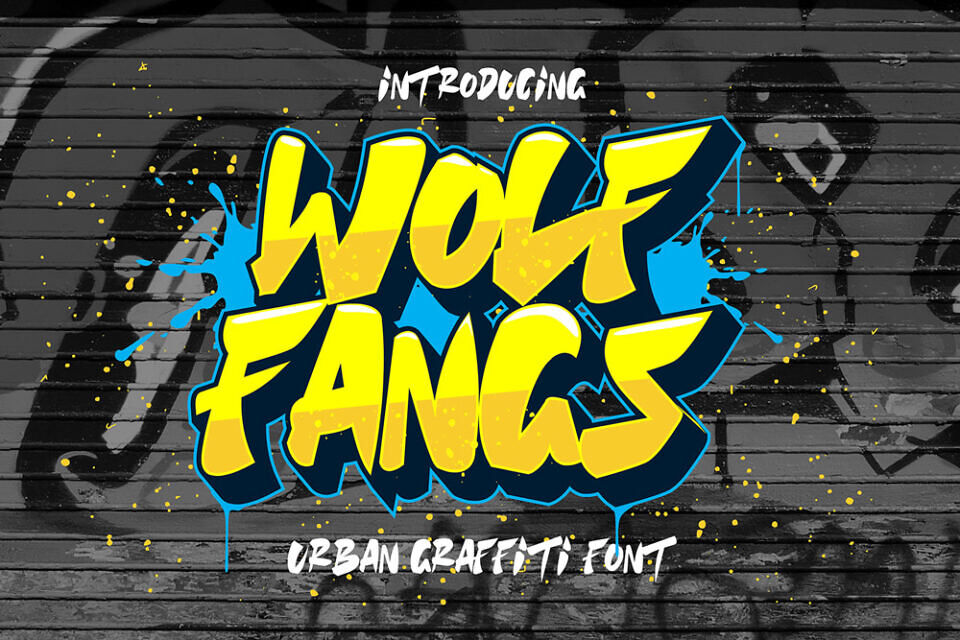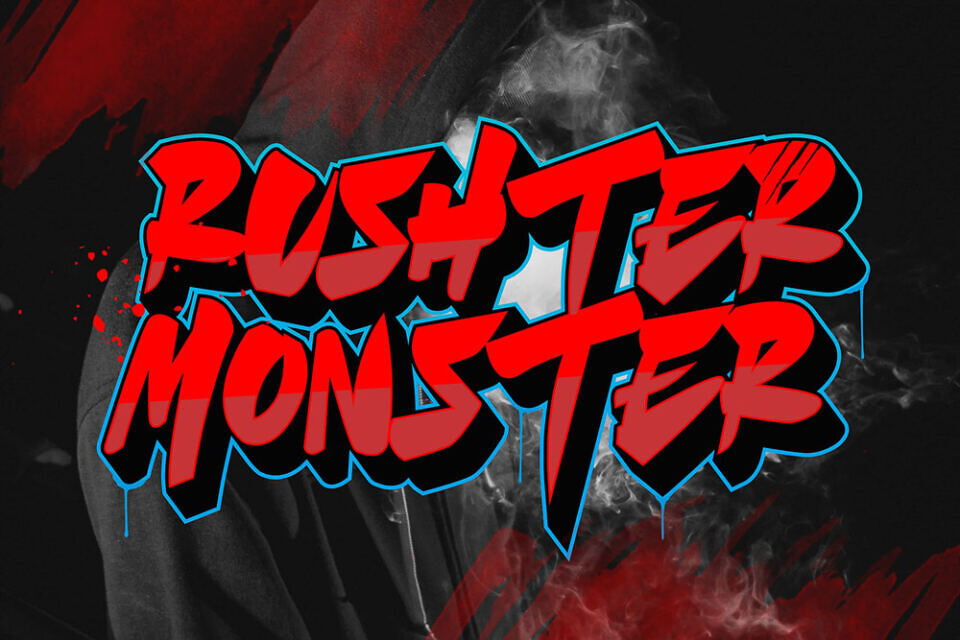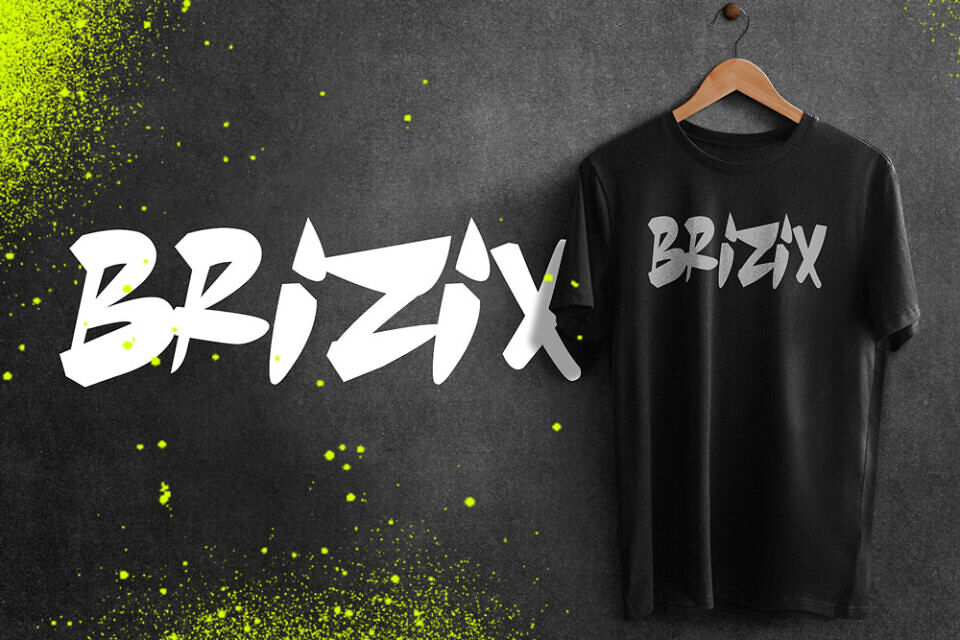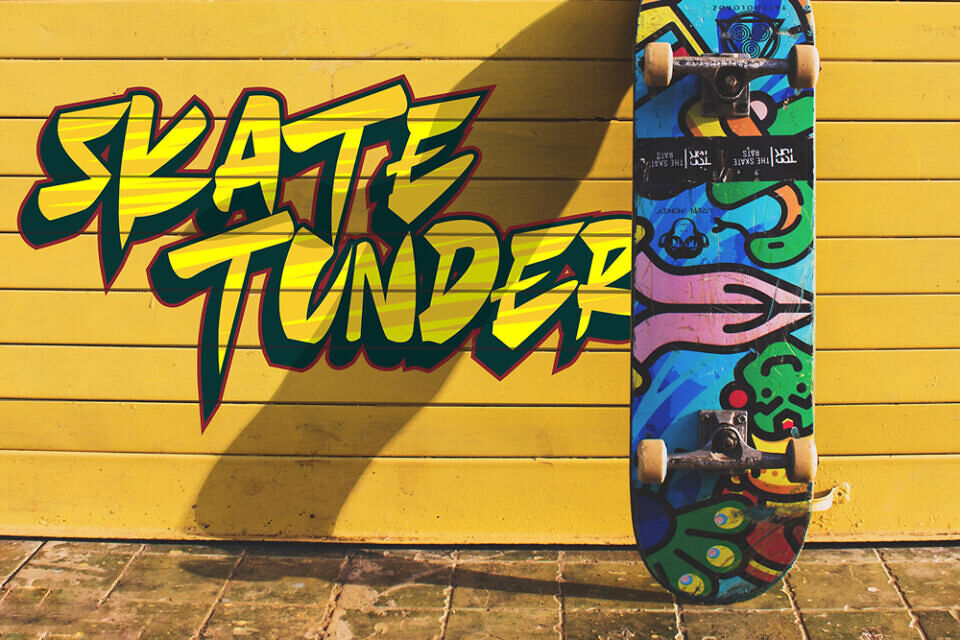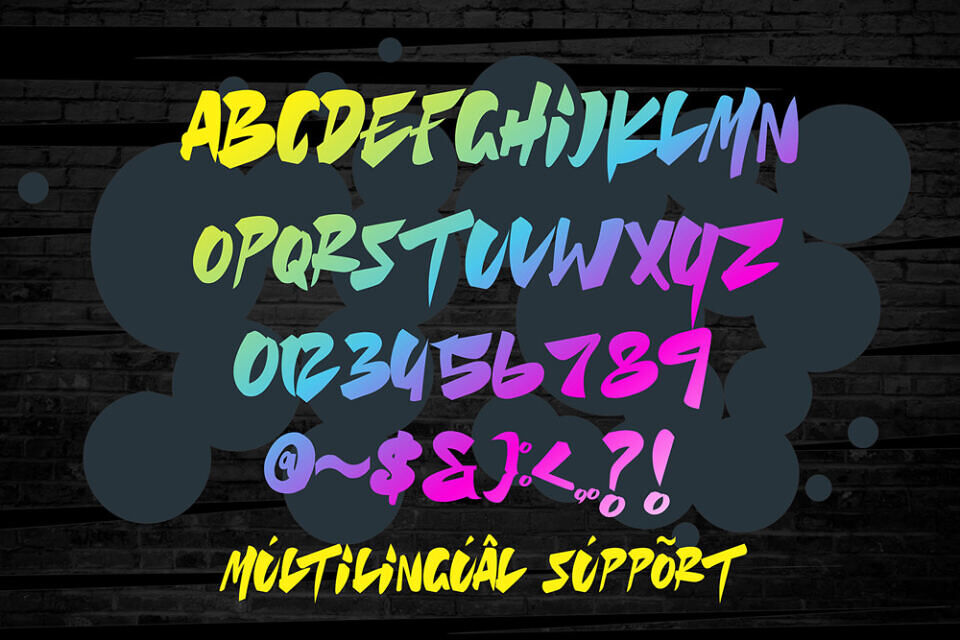
Wolf Fangs Font
Wolf Fangs is a modern graffiti font inspired by underground street culture, bold urban typography, edgy spray paint lettering, and contemporary streetwear aesthetics. Designed with aggressive character shapes and strong graffiti energy, this edgy display font delivers an authentic urban visual style perfect for modern creative projects.
Whether you are creating streetwear branding, music artwork, gaming graphics, posters, or social media content, Wolf Fangs helps your typography stand out with bold street-inspired personality.